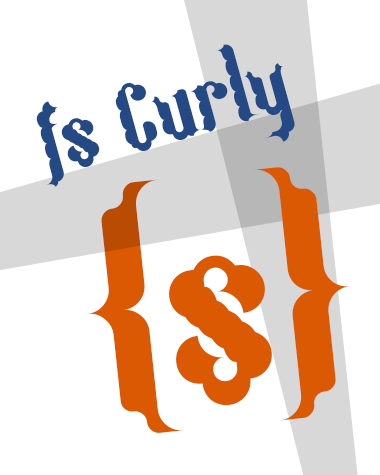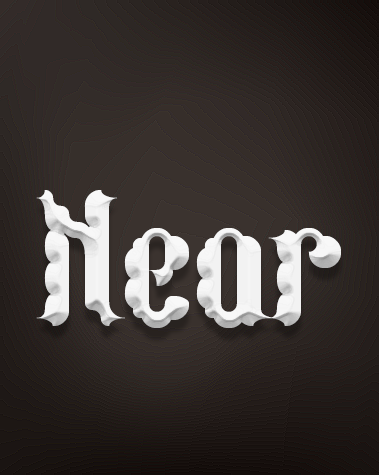
• I've been working on this for a while. I'm usually not that patient. I didn't even like it much. Then nudge came along. It now looks quite different from where it started. In the process, at least three variations have come and gone. Some of the characters are likeable now; other's not so much. I'm mostly just bored of this. Hence the half-hearted samples. Next! (Perhaps.)
Nudgelistic! This looks great at all sizes.
Unusual approach with effective result.
Oh my! Reminds me of whipped cream...aaaaaand you inspired me. Off to make a new font!